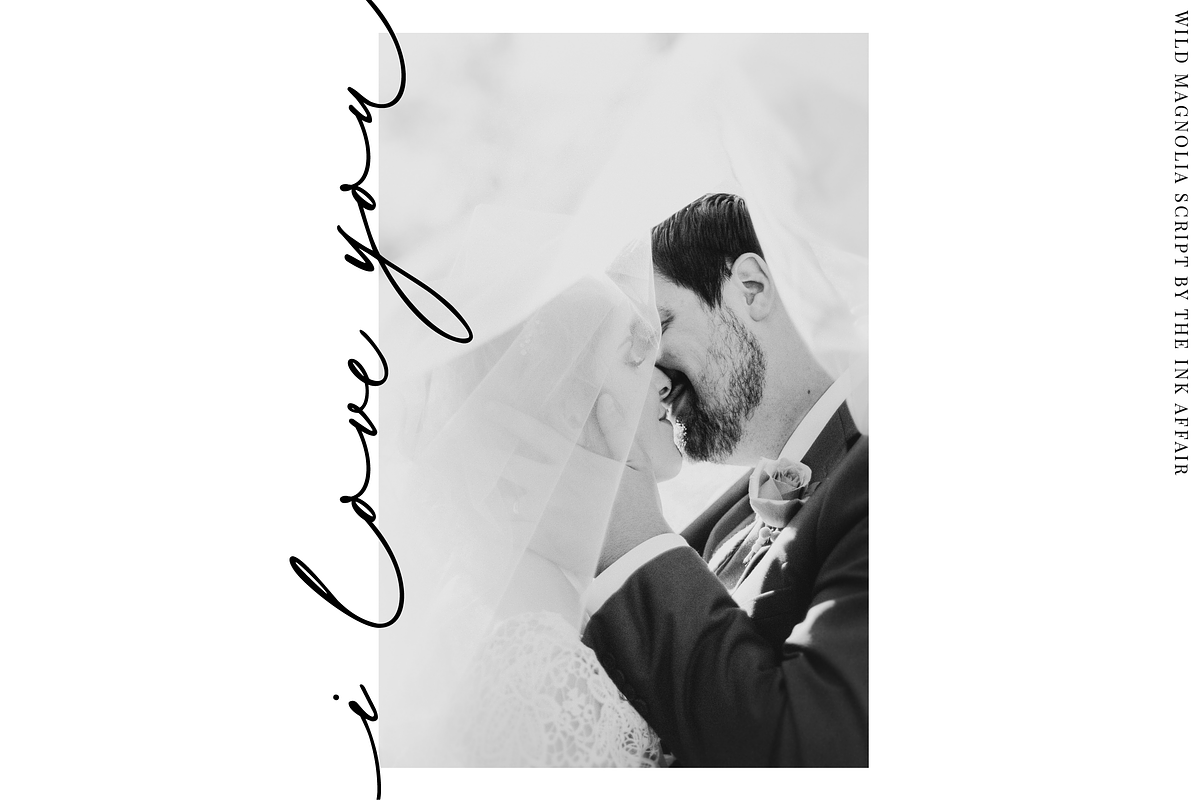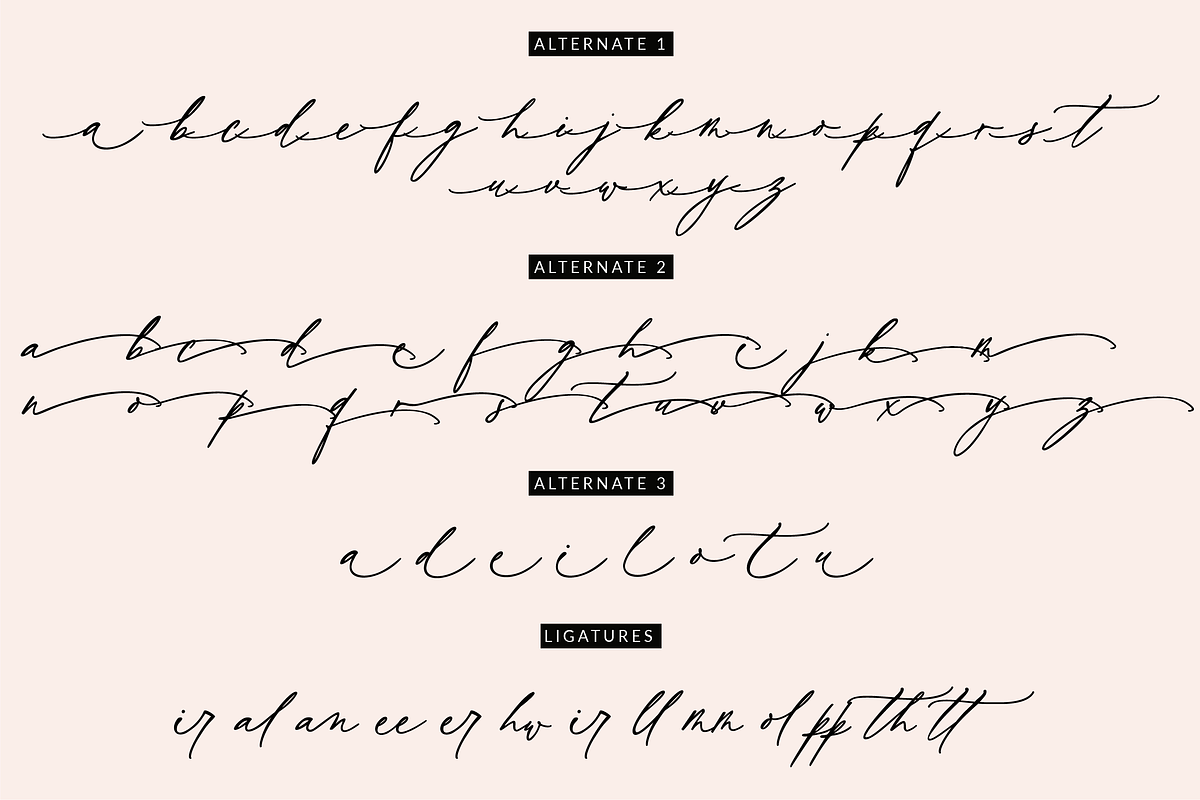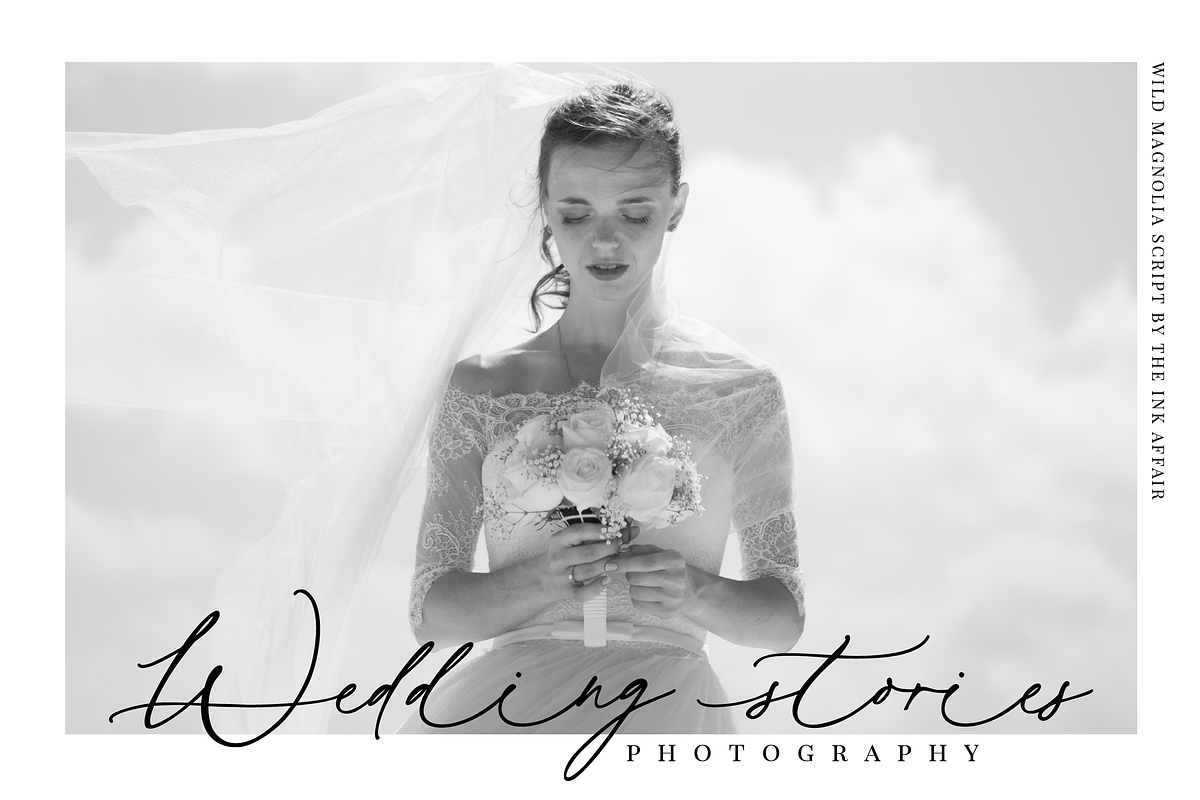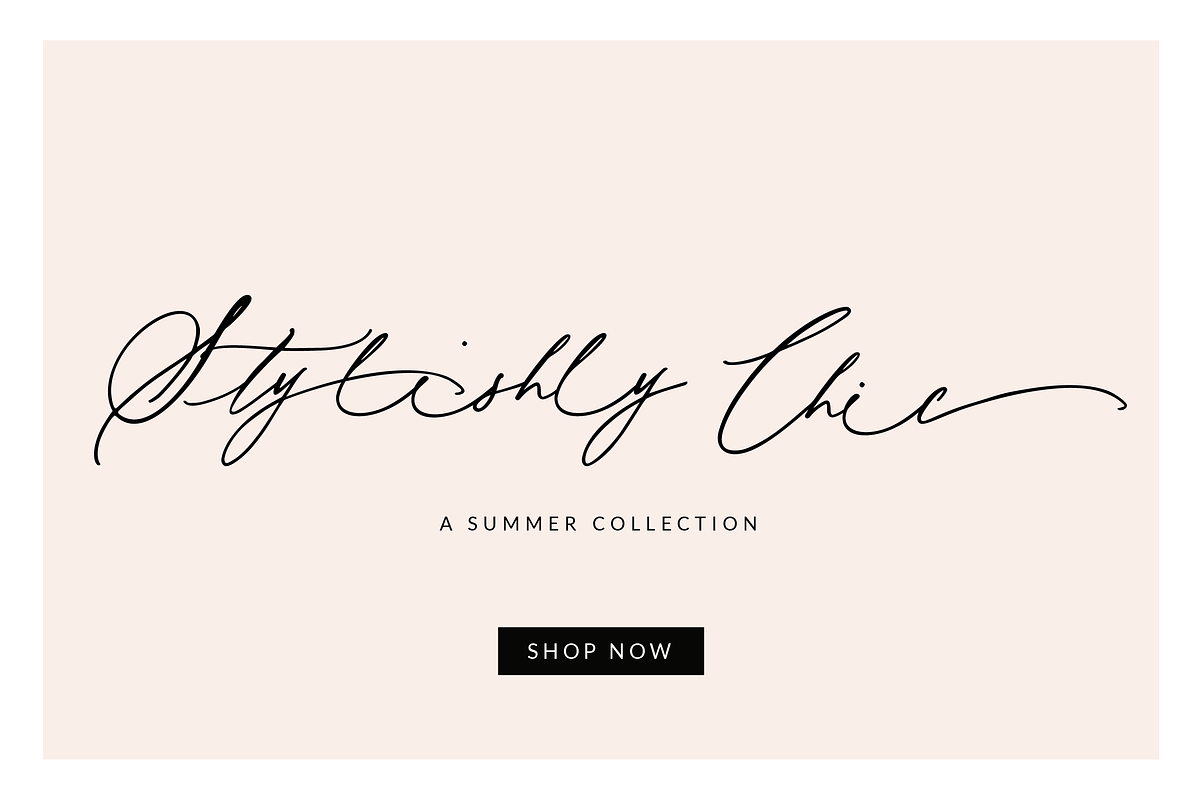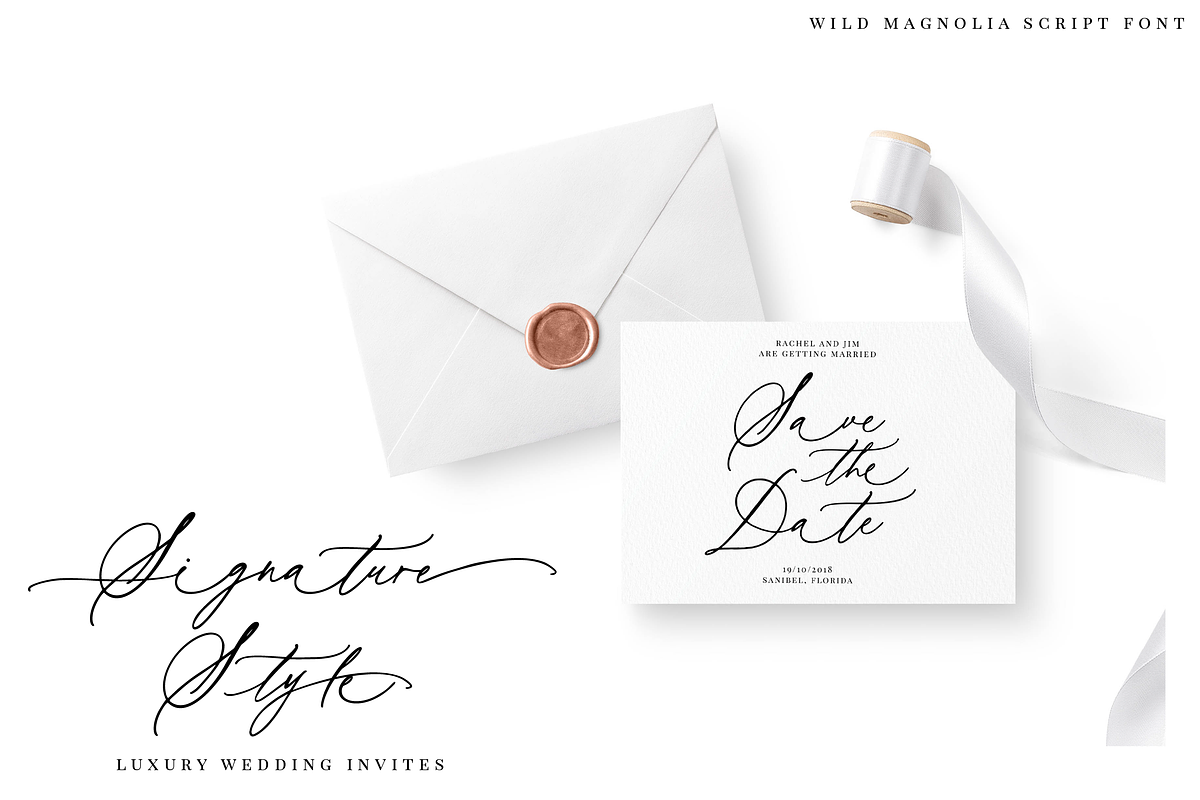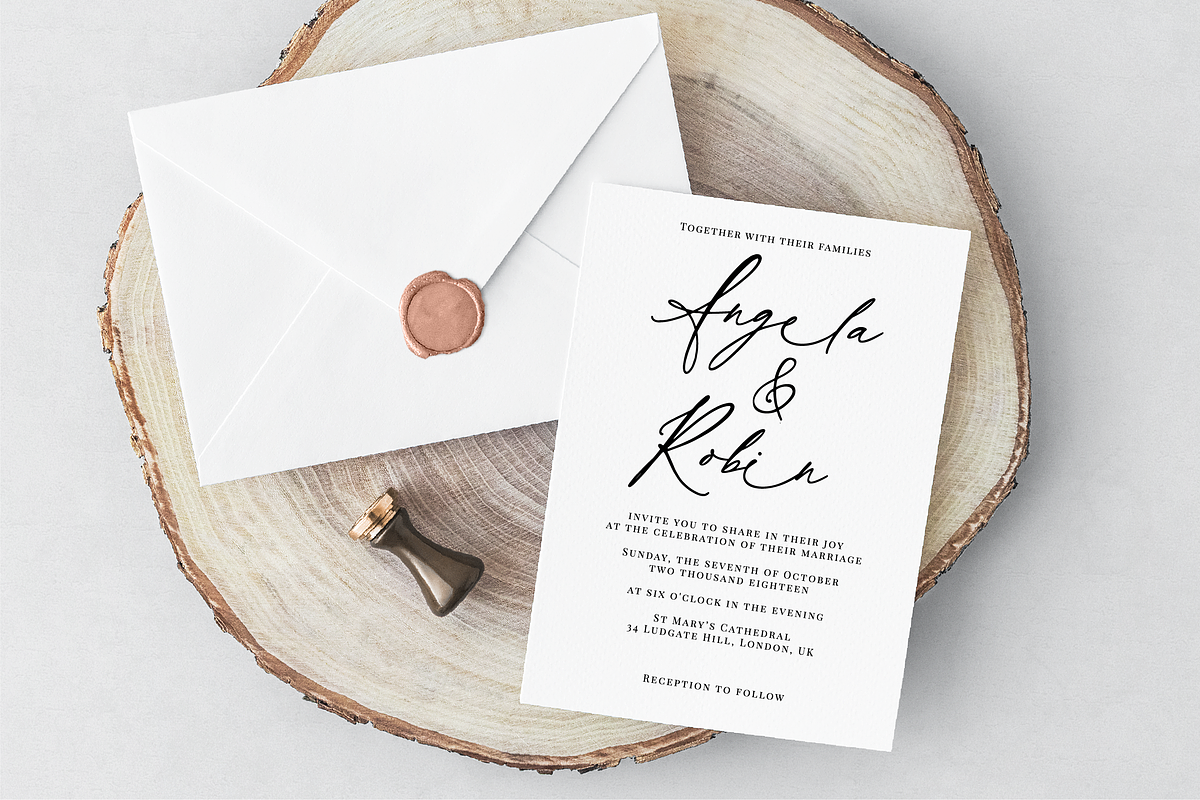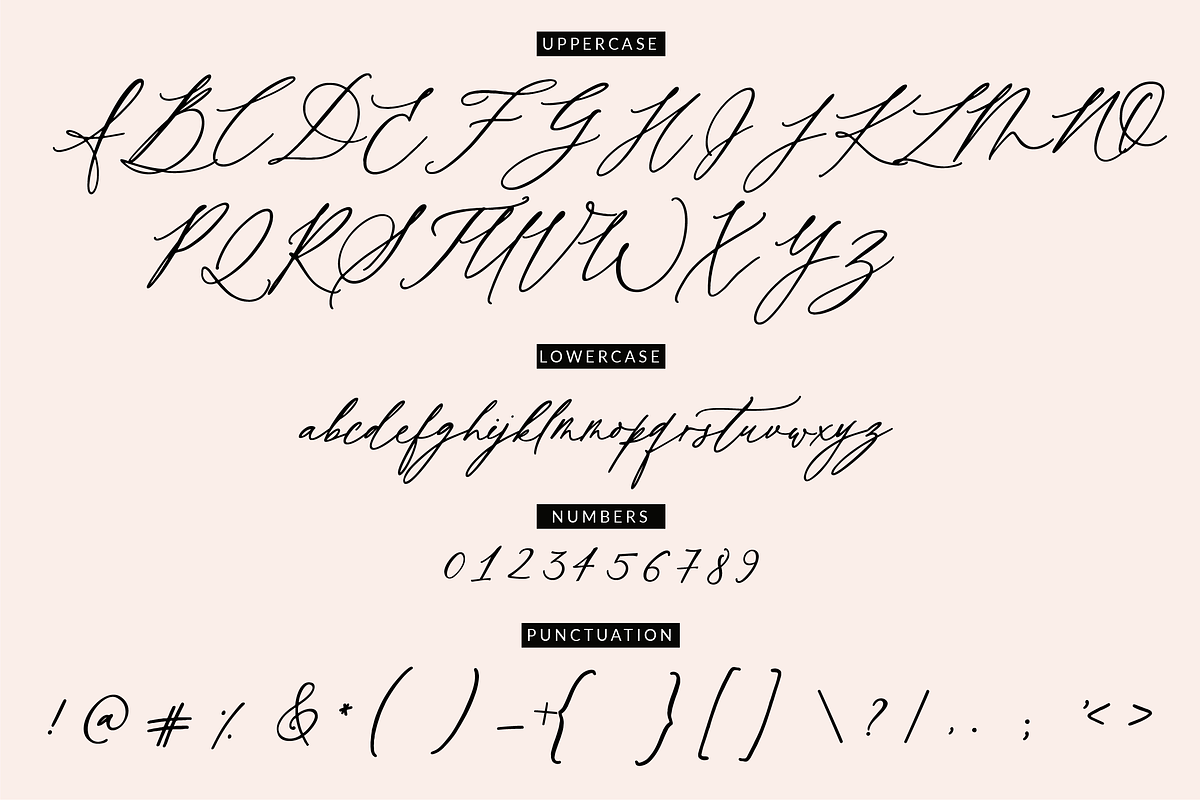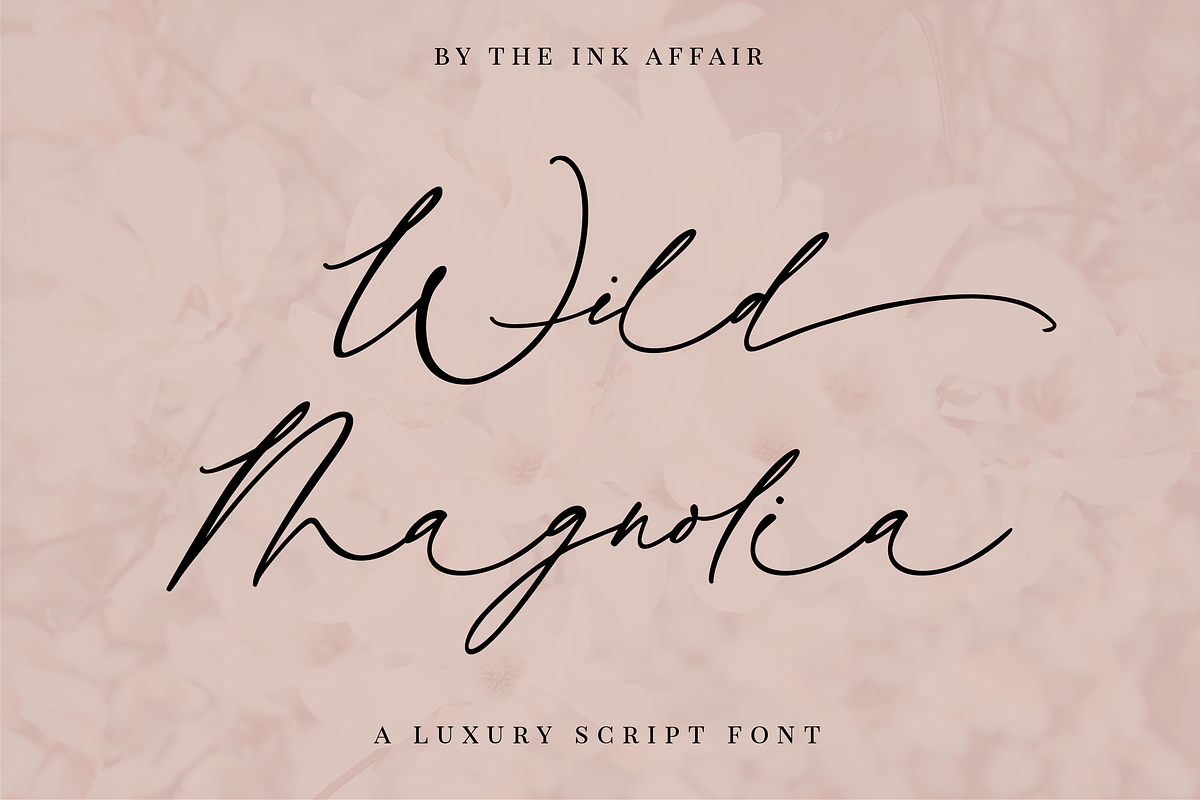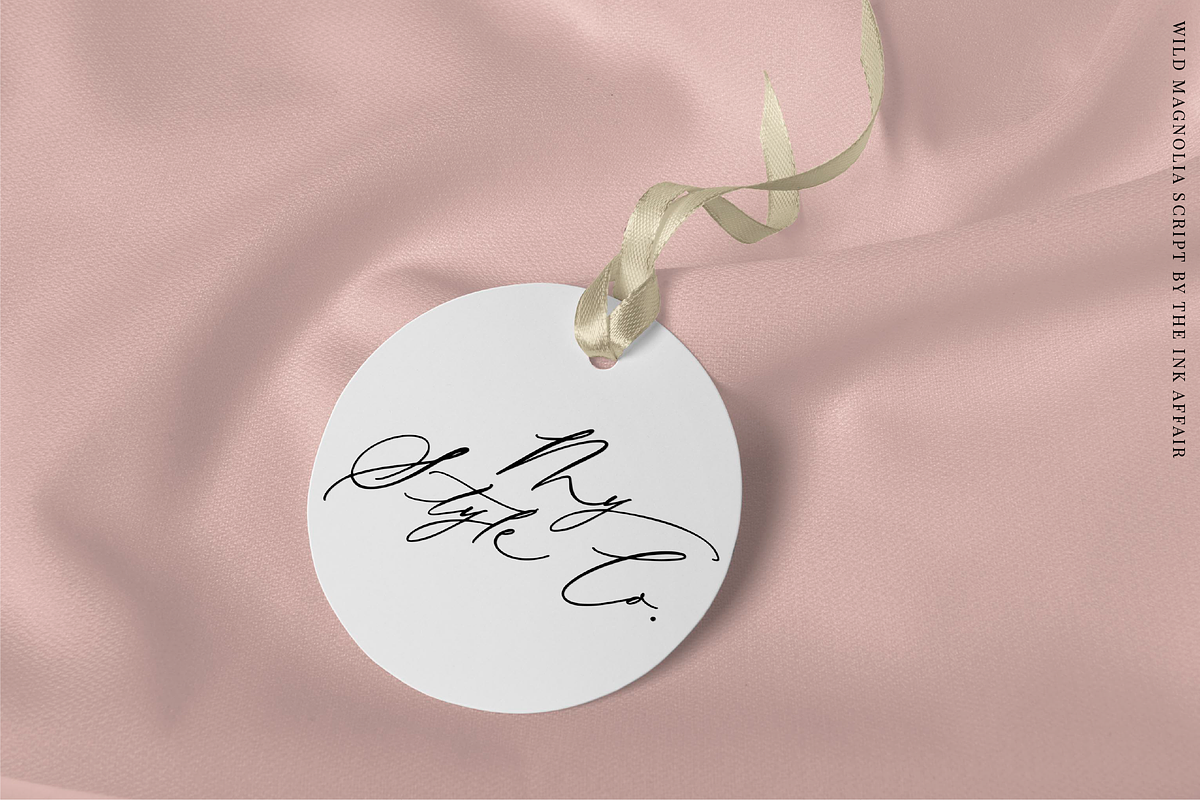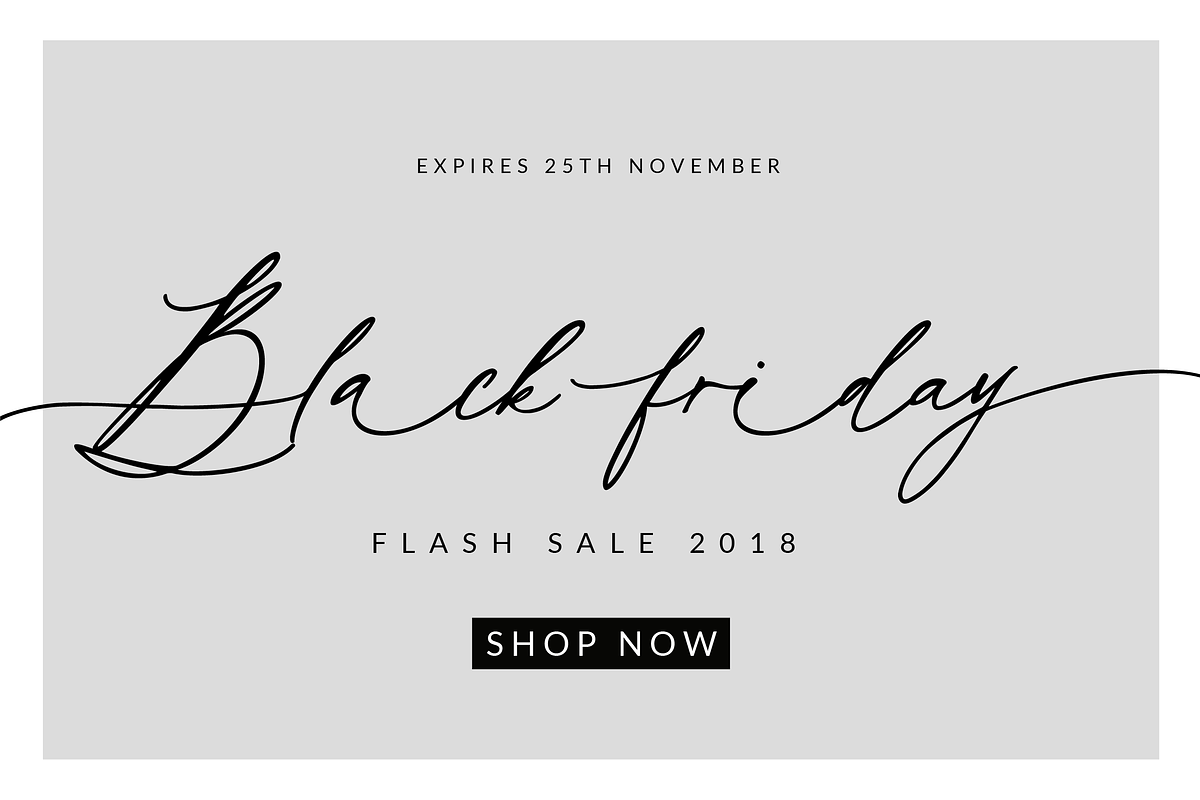
Wild Magnolia Luxury Script
Introducing the lovely luxury script font, Wild Magnolia!
Wild Magnolia is a modern organic signature script font that is perfect for giving your designs an authentic handwritten feel and is perfect for branding, wedding invites, logos, magazines, photo overlays, blogs and so much more!
Wild Magnolia includes a full set of beautiful uppercase and lowercase letters, numerals, punctuations and ligatures. It also includes beginning and ending swashes as alternate letters.
Long swash in the beginning as seen in Preview Image 4 ( Bianca ) can be added using the hyphen (-) key on your keyboard